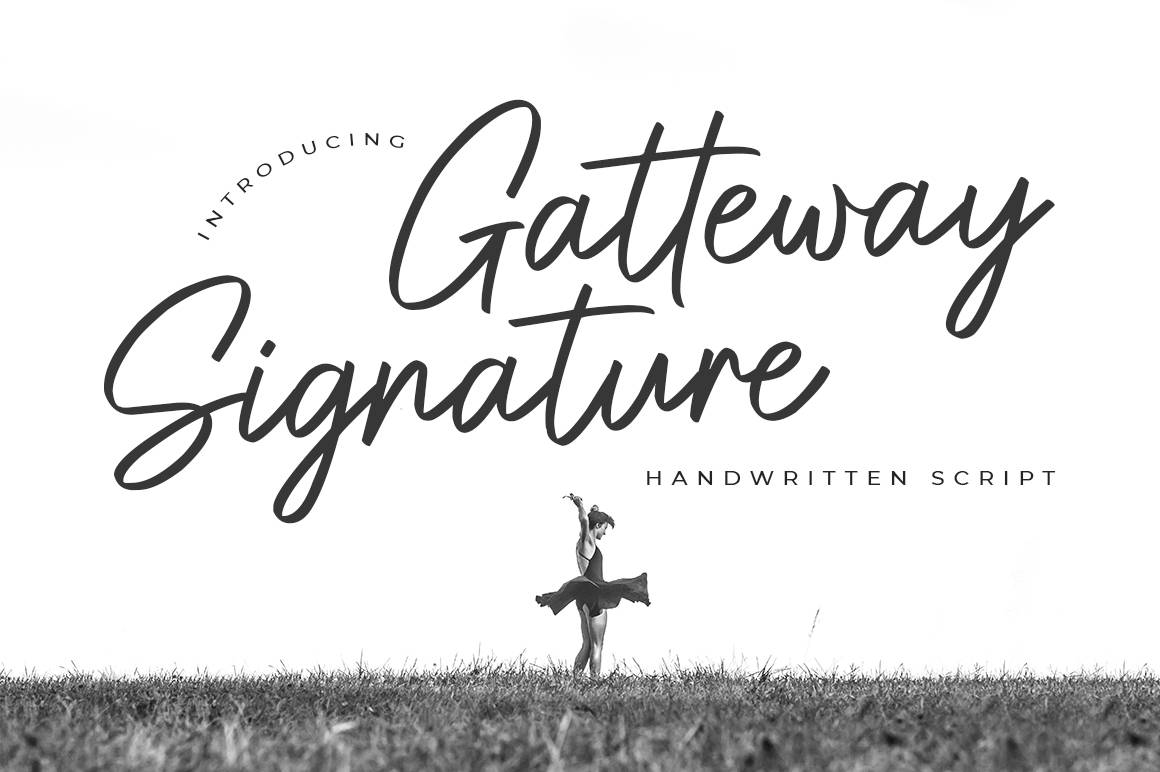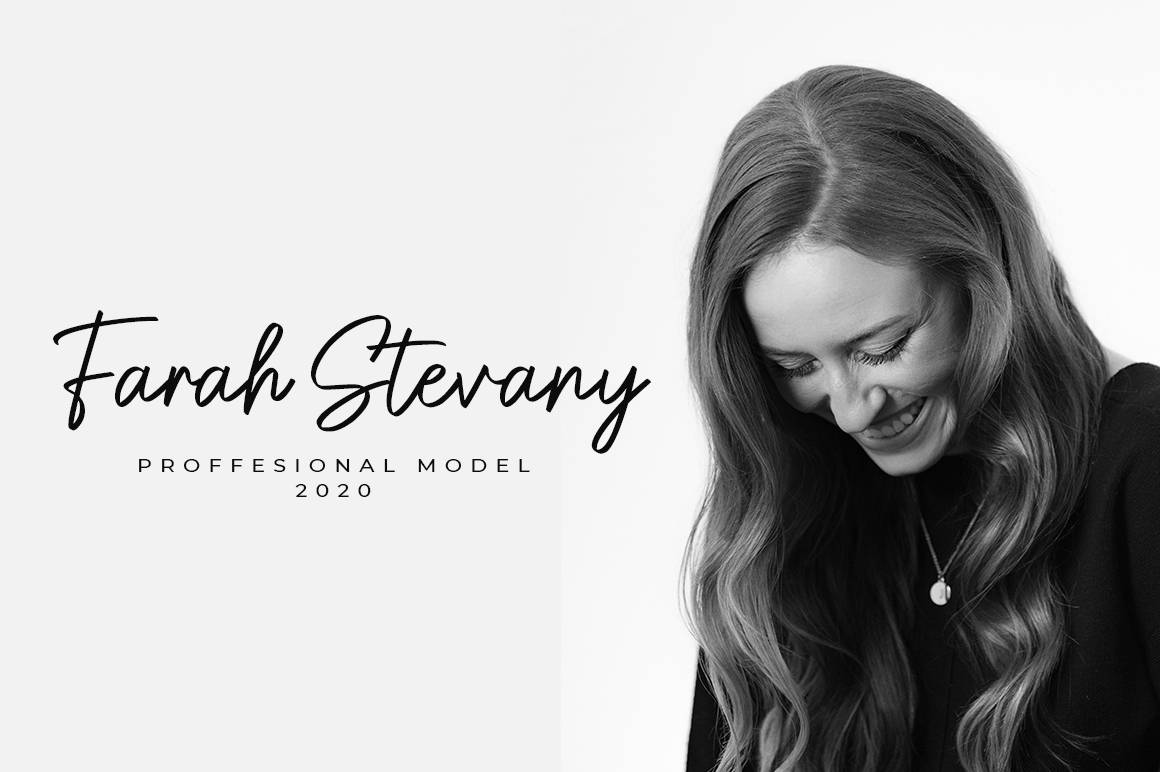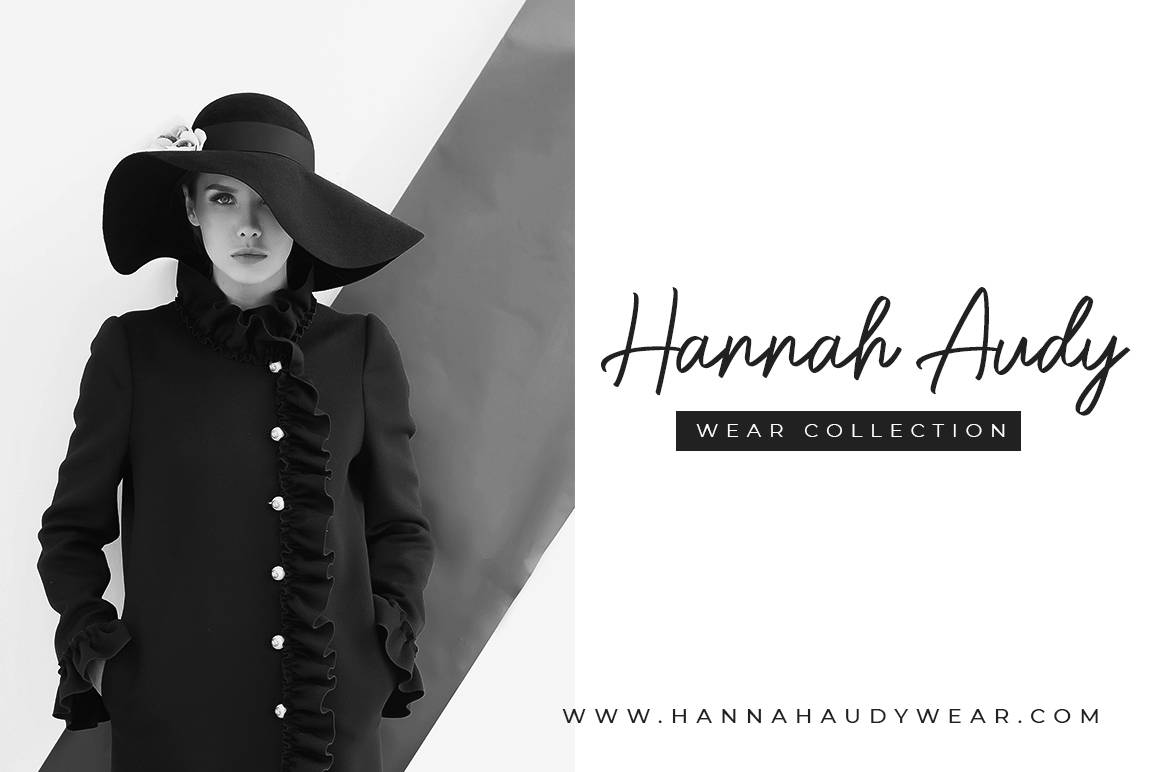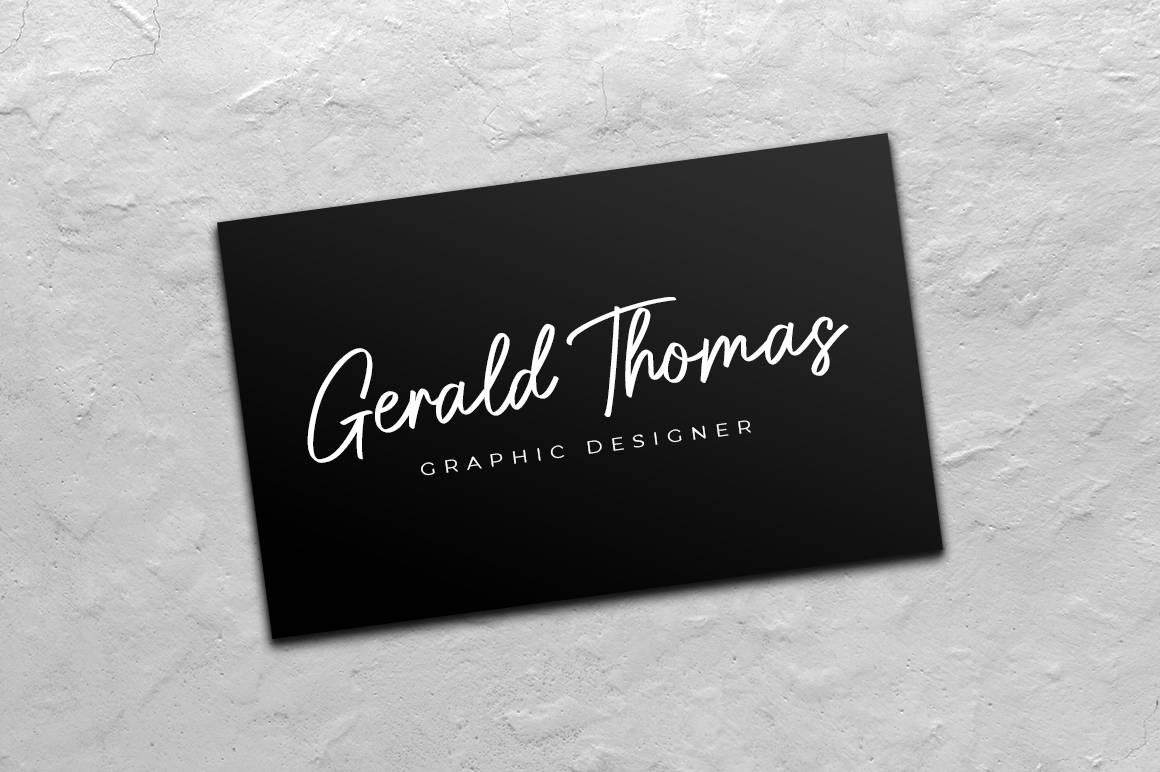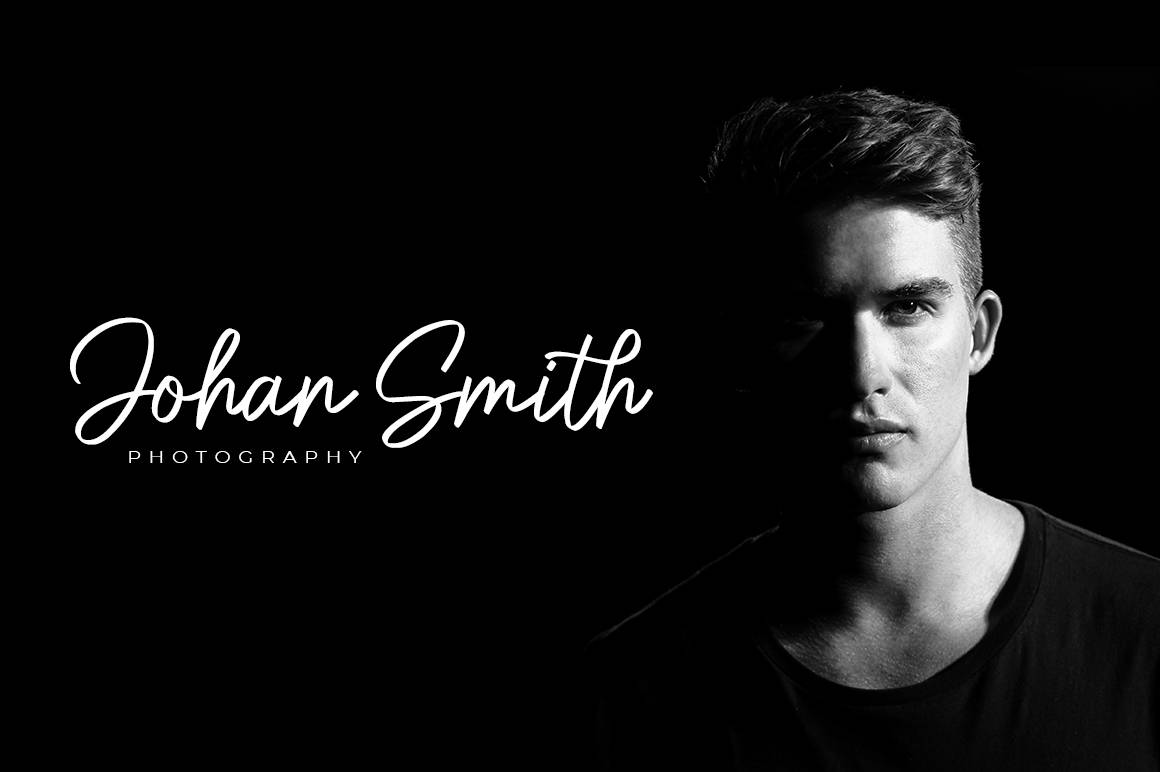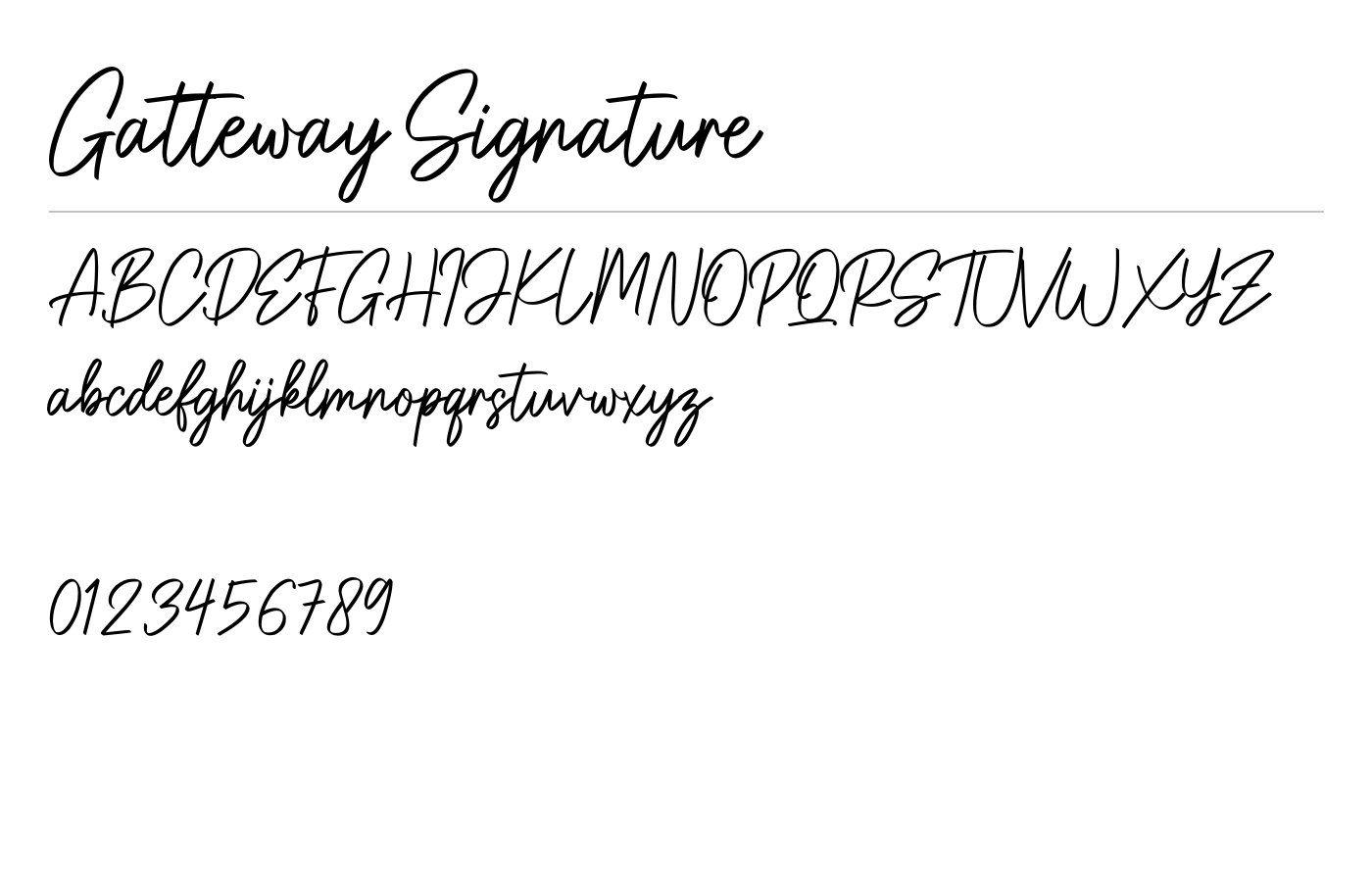
Gatteway Signature is a slim, elegant script font that captures the natural flow of handwriting with a modern, casual touch. Its smooth, slightly slanted strokes and varying line weight give it a personal, approachable feel, making it perfect for branding, invitations, and stylish logos that seek a handwritten charm. This font works well in contexts where a blend of professionalism and warmth is desired, such as fashion, lifestyle, and creative projects.
Gatteway Signature Font
About Gatteway Signature Font
| Font family | Gatteway Signature Font |
| Release date | 2019-12-06 |